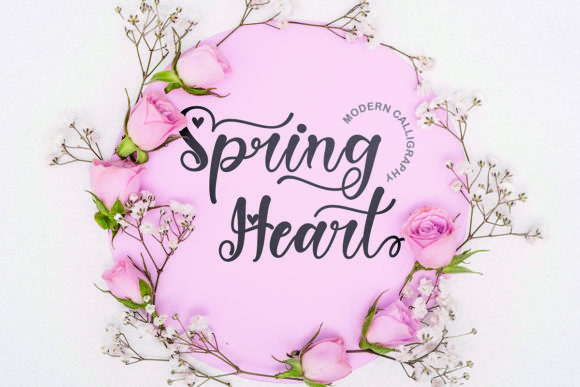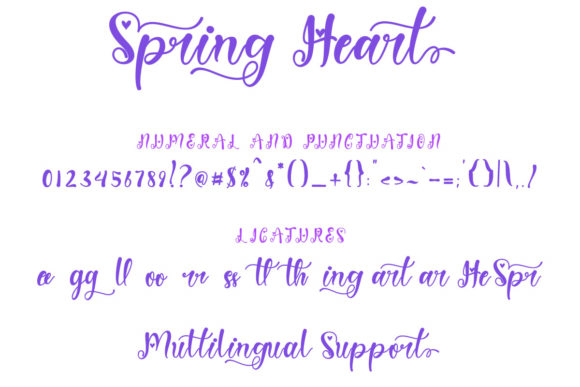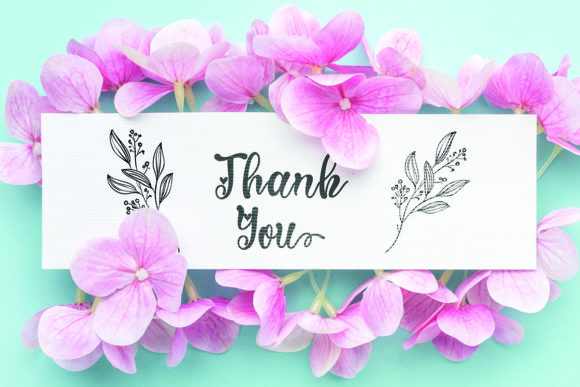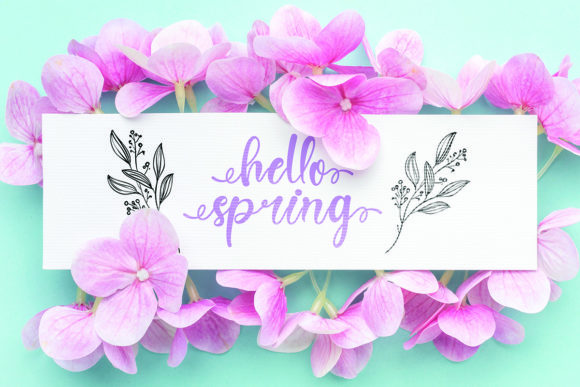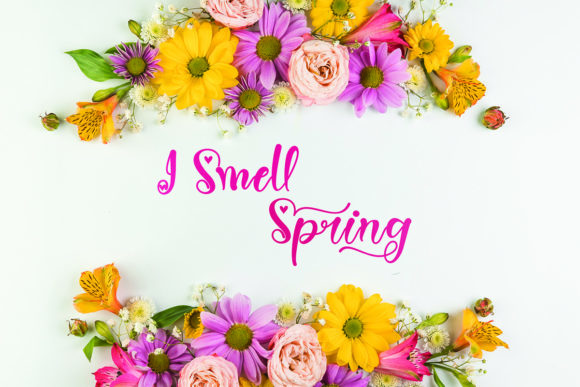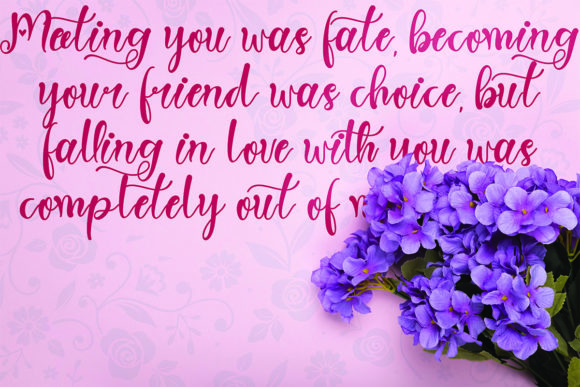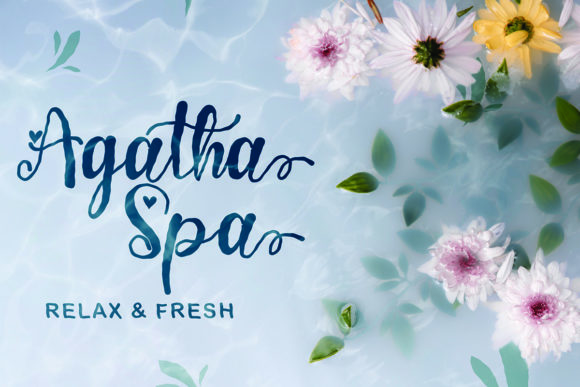
Spring Heart Font
About Spring Heart Font
Spring Heart is a sweet and cursive handwritten font. This gentle font will look gorgeous on a variety of design ideas. It will add a joyful and romantic touch to each of your projects! This font is PUA encoded which means you can access all of the glyphs and swashes with ease!